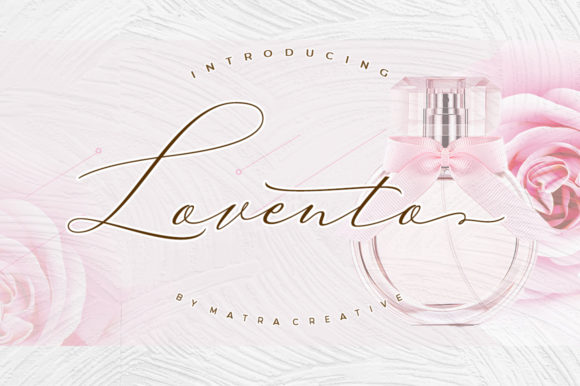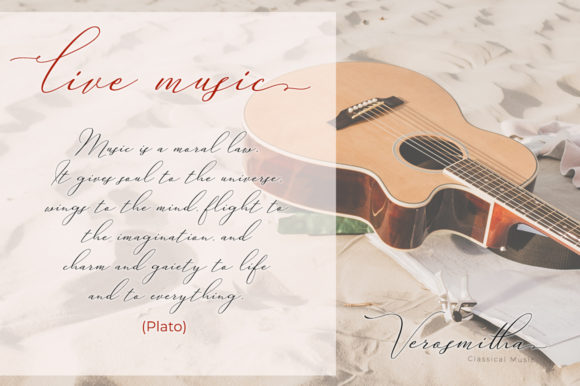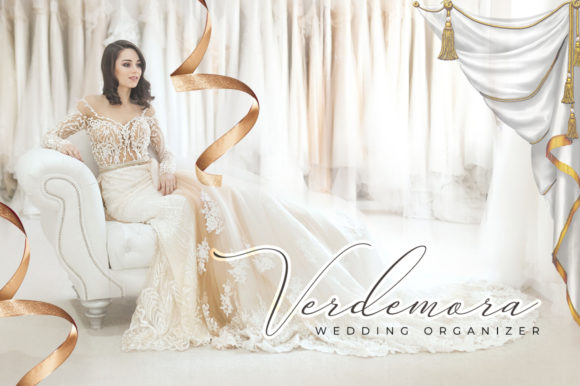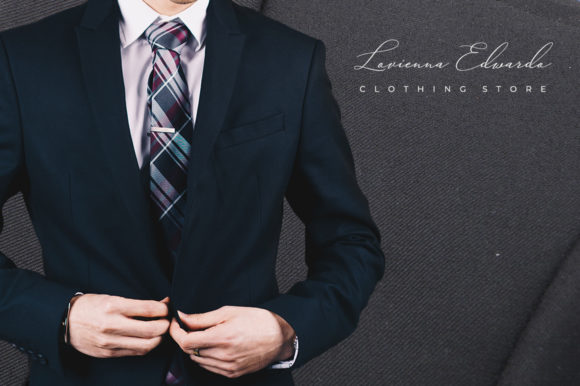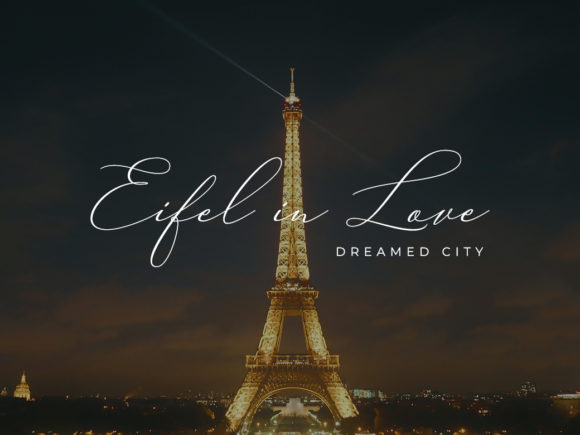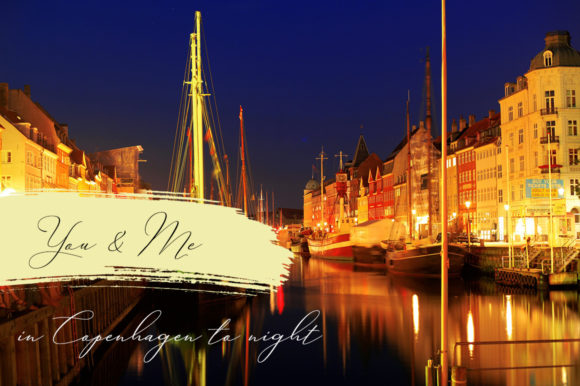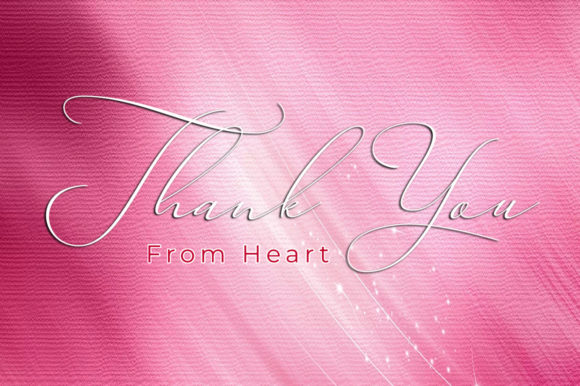
Lovento Font
About Lovento Font
Lovento is a typical decorative signature font which with you can achieve an amazing handwritten feeling.
This type of handwriting can be used on social media, branding or packaging, wedding invitations, and much more!